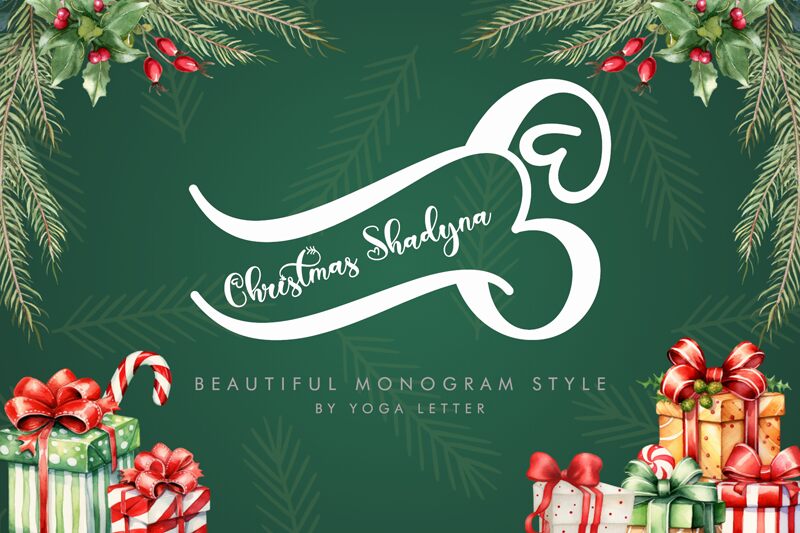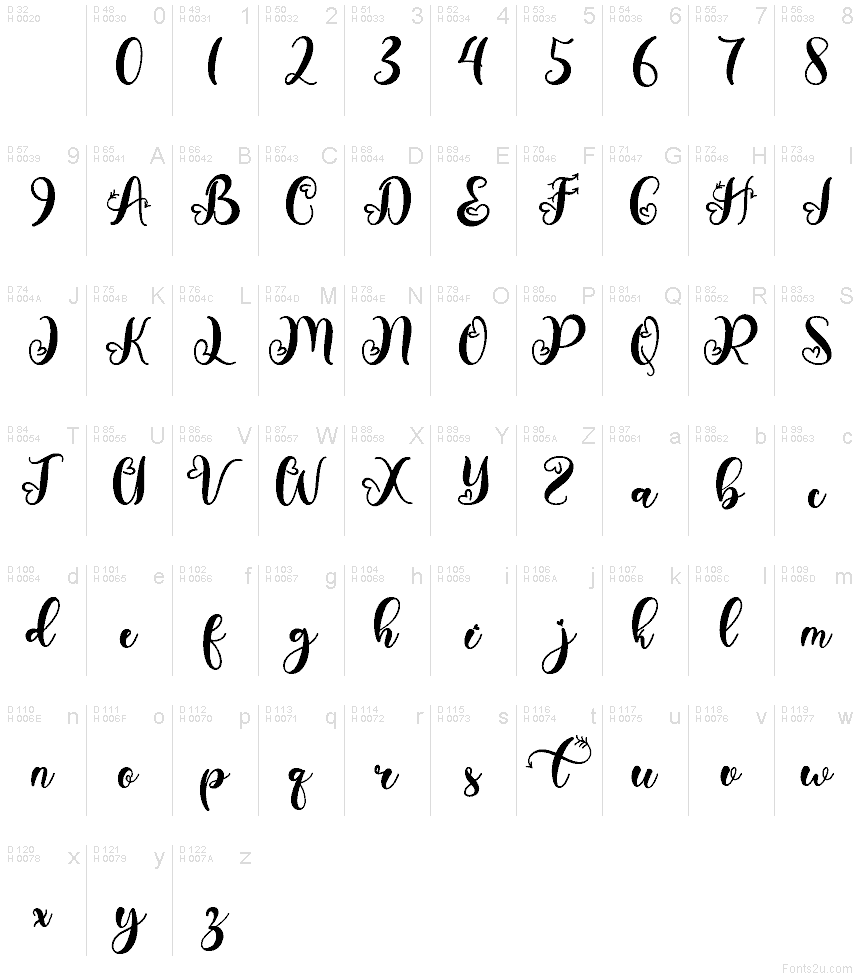
Christmas Shadyna Demo
Christmas Shadyna font by Yoga Letter is a free Christmas calligraphy font that wraps every word in a hand-lettered, festive glow. Its sweeping curves, looping tails, and playful rhythm feel like they’ve been brushed straight onto a holiday card, with just enough flourish to look special without becoming fussy. Soft, inky strokes give it a cozy, homemade warmth that instantly suggests snow, twinkle lights, and ribbon-wrapped gifts.
Using Christmas Shadyna, your holiday projects gain an instant signature: it shines on greeting cards, gift tags, party invitations, seasonal logos, social media graphics, and cozy mug or packaging designs. The letters connect smoothly, creating flowing phrases that stand out in larger sizes. Pair this free font with a clean, light sans serif for small supporting text to keep your layouts readable while letting the script handle all the holiday magic.